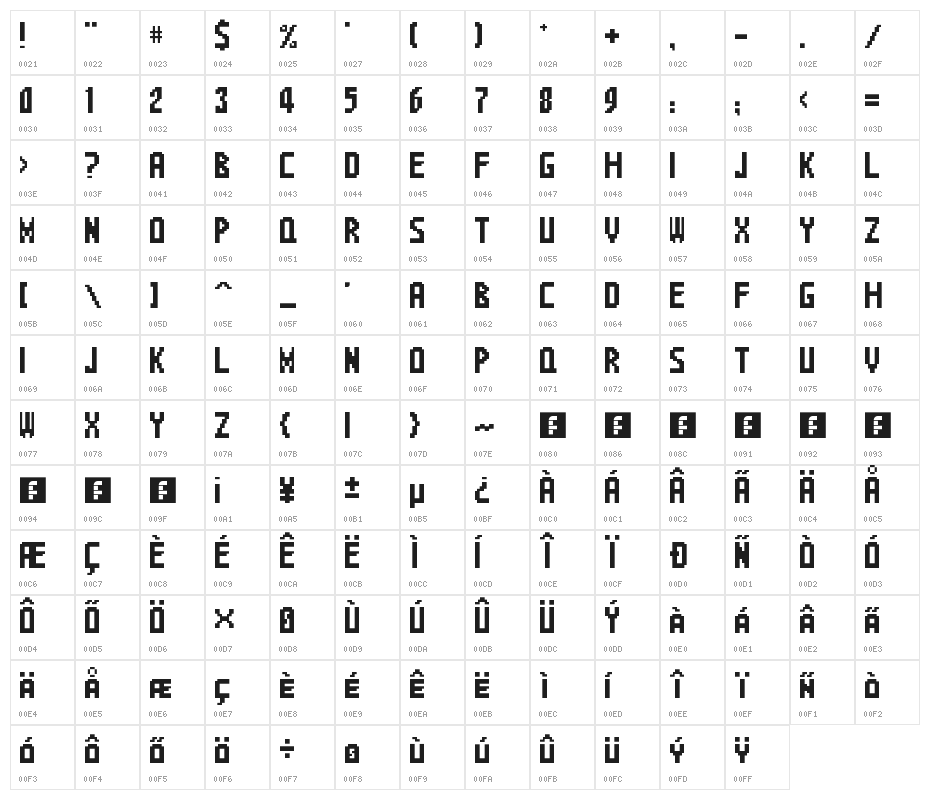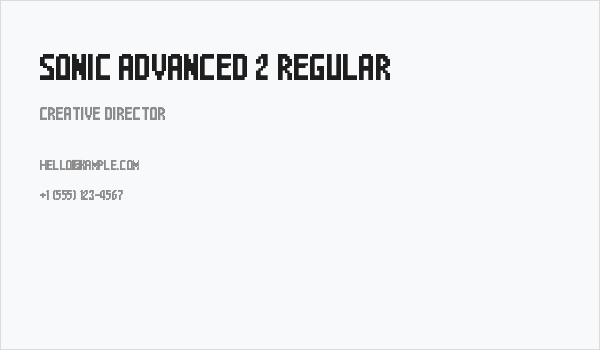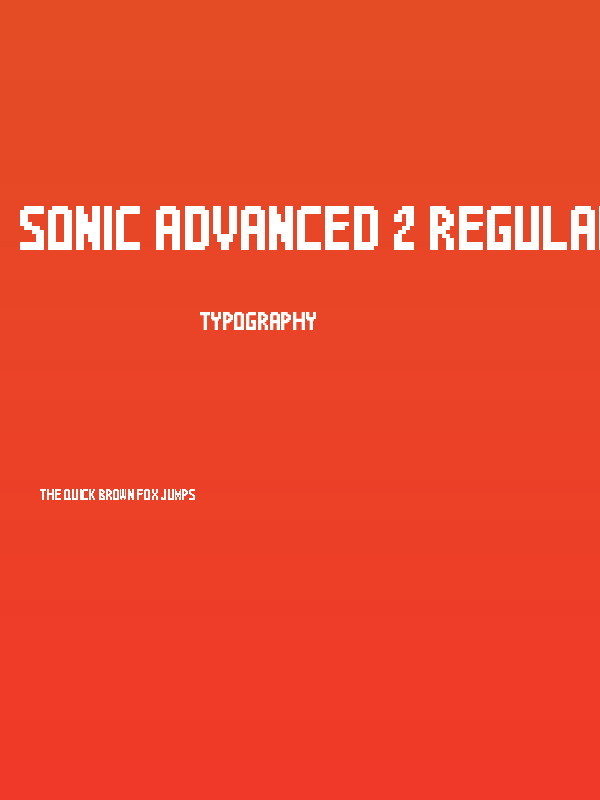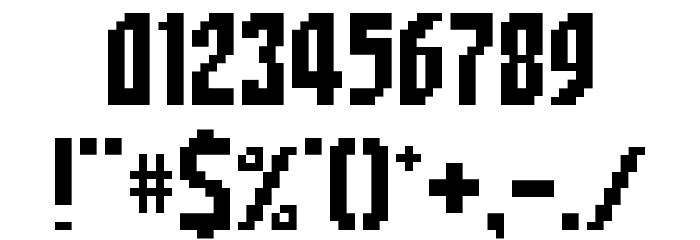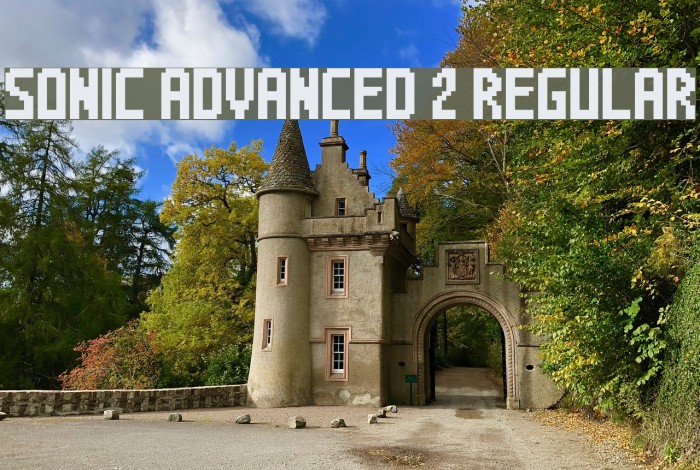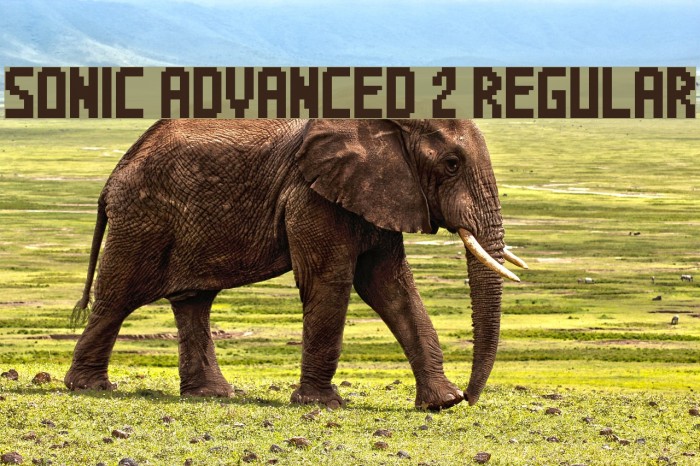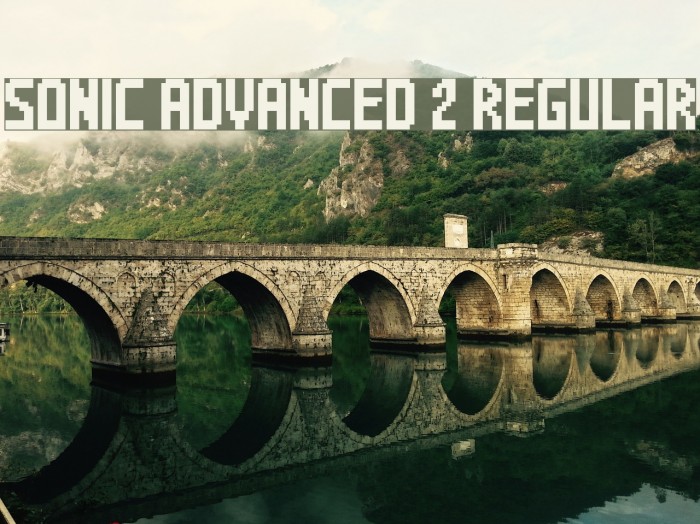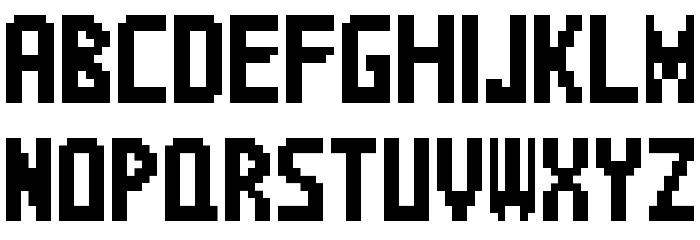
Sonic Advanced 2 Regular Font
Sonic Advanced 2 Regular Description
This font features a bold, pixelated design reminiscent of classic video game aesthetics. The characters are constructed with a blocky, geometric style, giving it a retro, digital feel. Each letter and number is distinctly separated, ensuring clarity and readability. The uniformity in the height and width of the characters contributes to a cohesive and structured appearance. The font's angular edges and straight lines create a sense of precision and modernity, making it ideal for projects that require a tech-savvy or nostalgic touch.
| Proposed Projects | Ideal for video game design, retro-themed posters, digital art, and tech-related branding. |